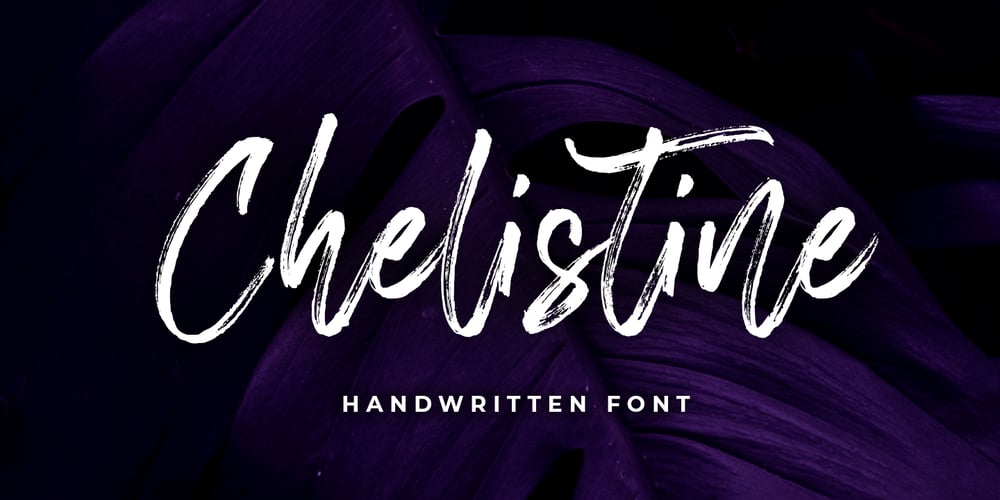
Chelistine Font Family was designed by Abo Daniel and published by Abo Daniel. Chelistine contains 2 styles and family package options. introducingCHELISTINE- Beauty Handwritten Font -CHELISTINE is a natural font, that is made using a real brush pen.It is great for Signature, logos, branding, advertising, titling, quotes, and more.It came in 2 styles: Regular Slant Features: Uppercase Lowercase Number & Puncturation Multilingual Support Swash PUA encoded The ending swashes make this product so complete and perfect.Very easy to access. You only need to add an underscore twice after the lowercase character.example: a_ _ it will become a with swashSo, don’t hesitate to purchase this product. It is fantastic.Regards,Abo Daniel